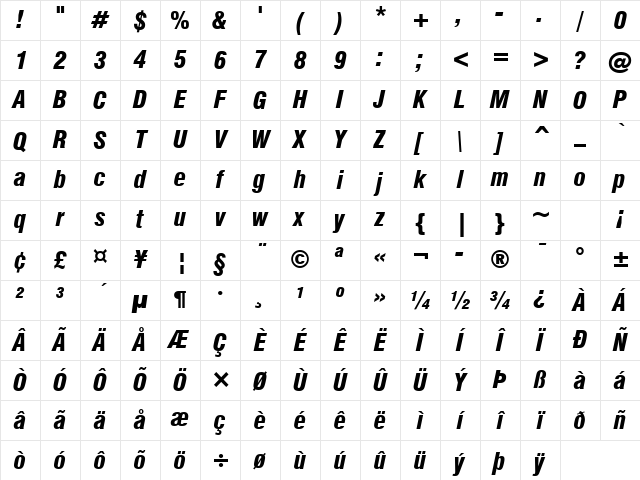
Complete Swis721 BlkCn BT Black Italic glyph index. Displaying only characters natively supported by Swis721 BlkCn BT Black Italic font.
Swis721 BlkCn BT is a composed and adaptable typeface that performs quietly and consistently across a wide range of design contexts. The slanted form adds forward momentum and visual energy.
Pro Tip: Use Swis721 BlkCn BT for emphasis, pull quotes, and subheadings where its slanted energy can add rhythm to the layout.